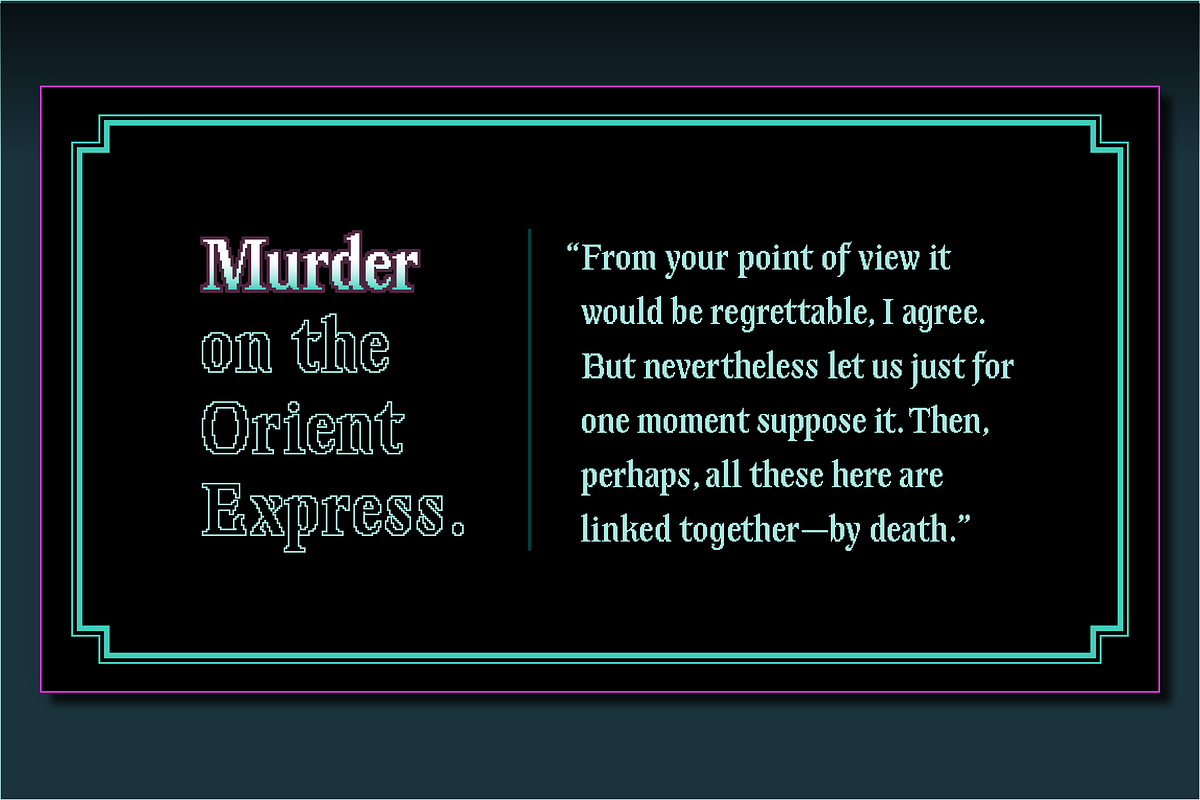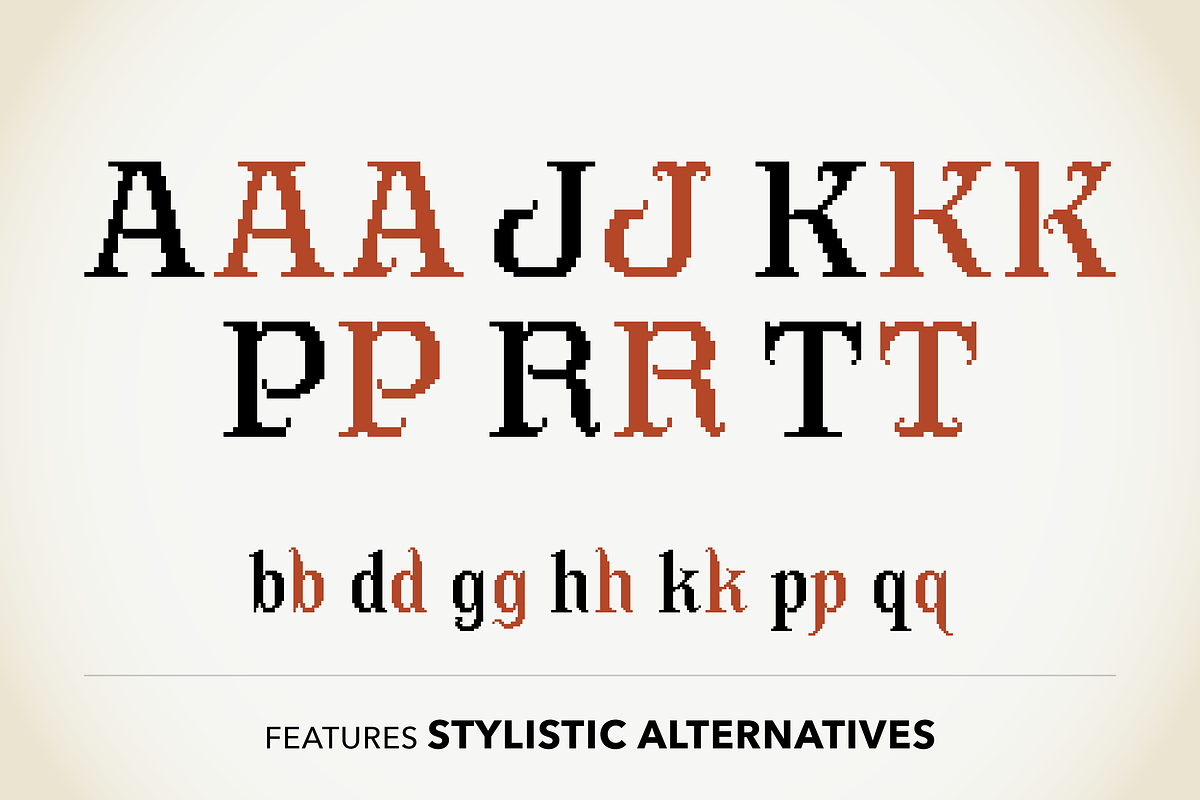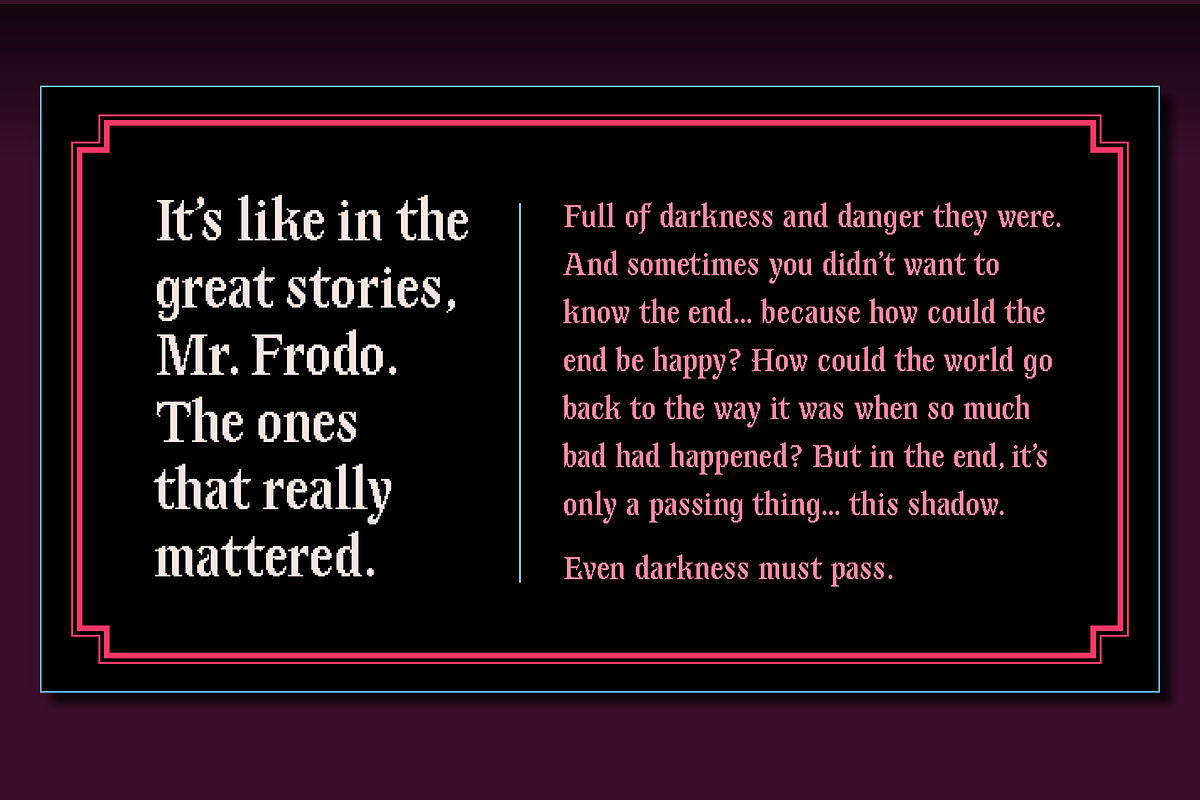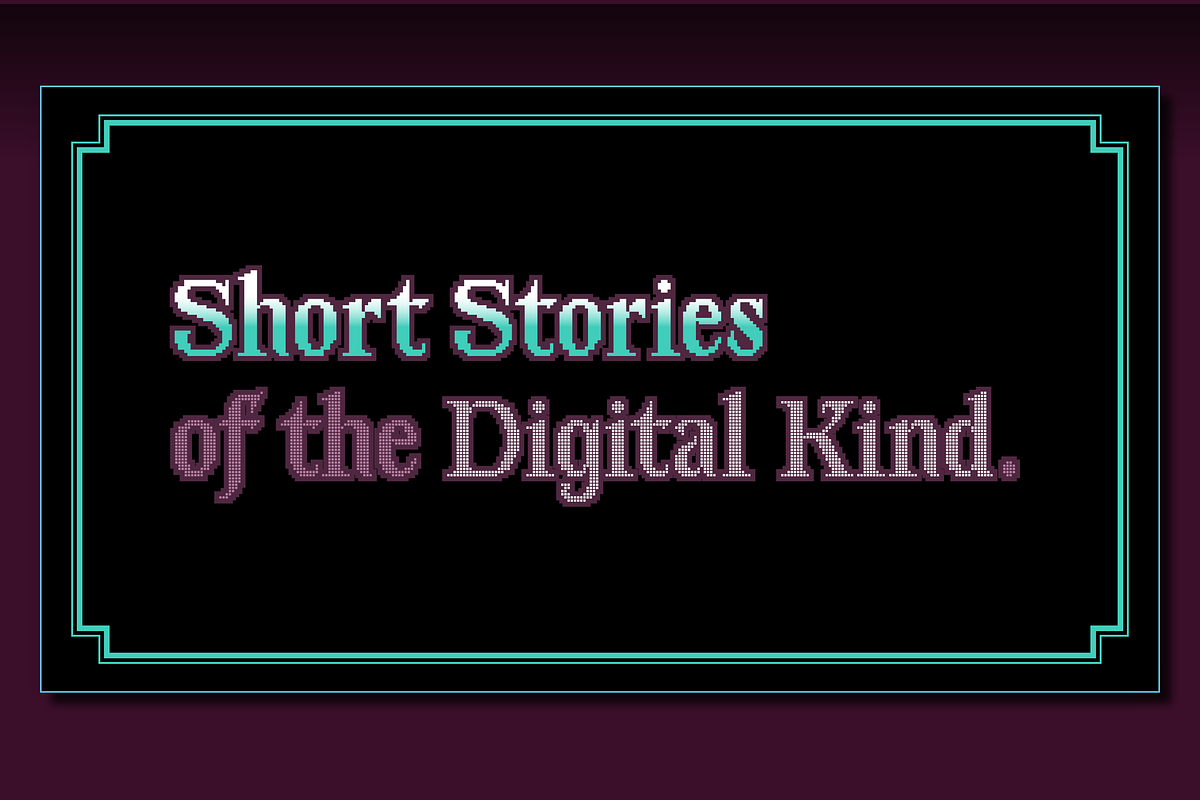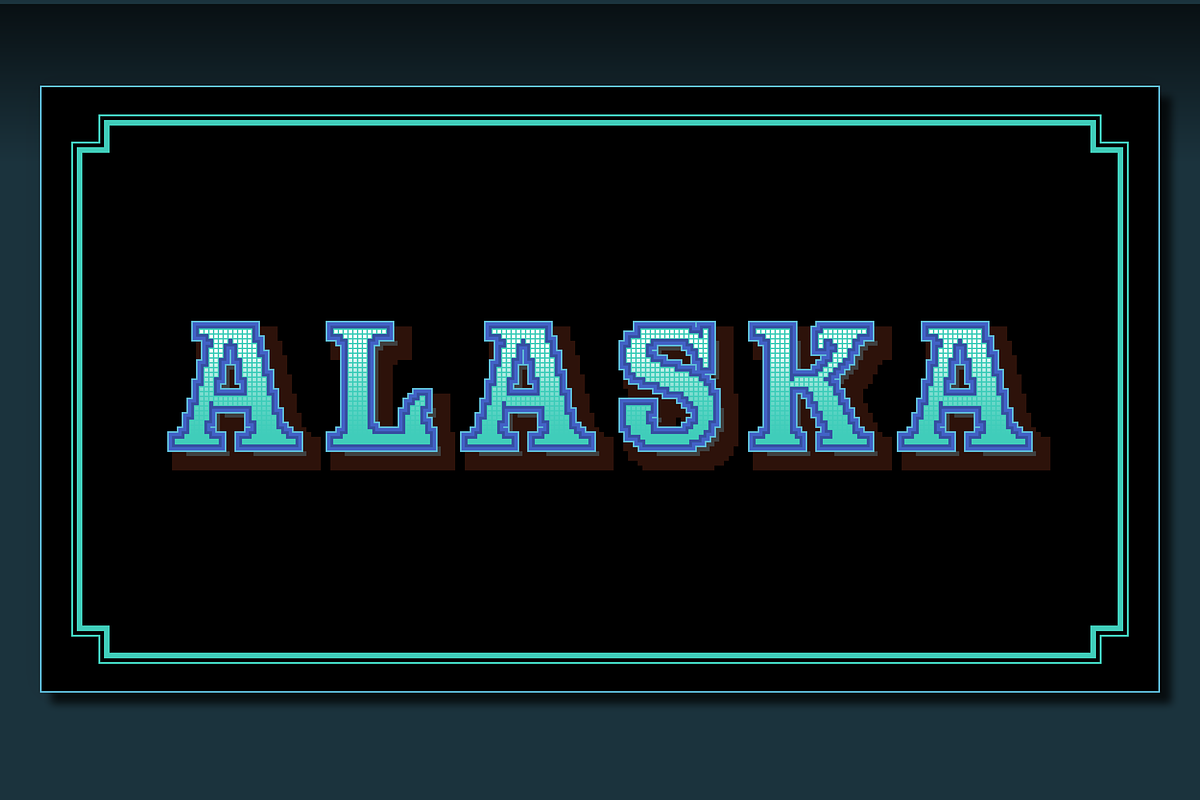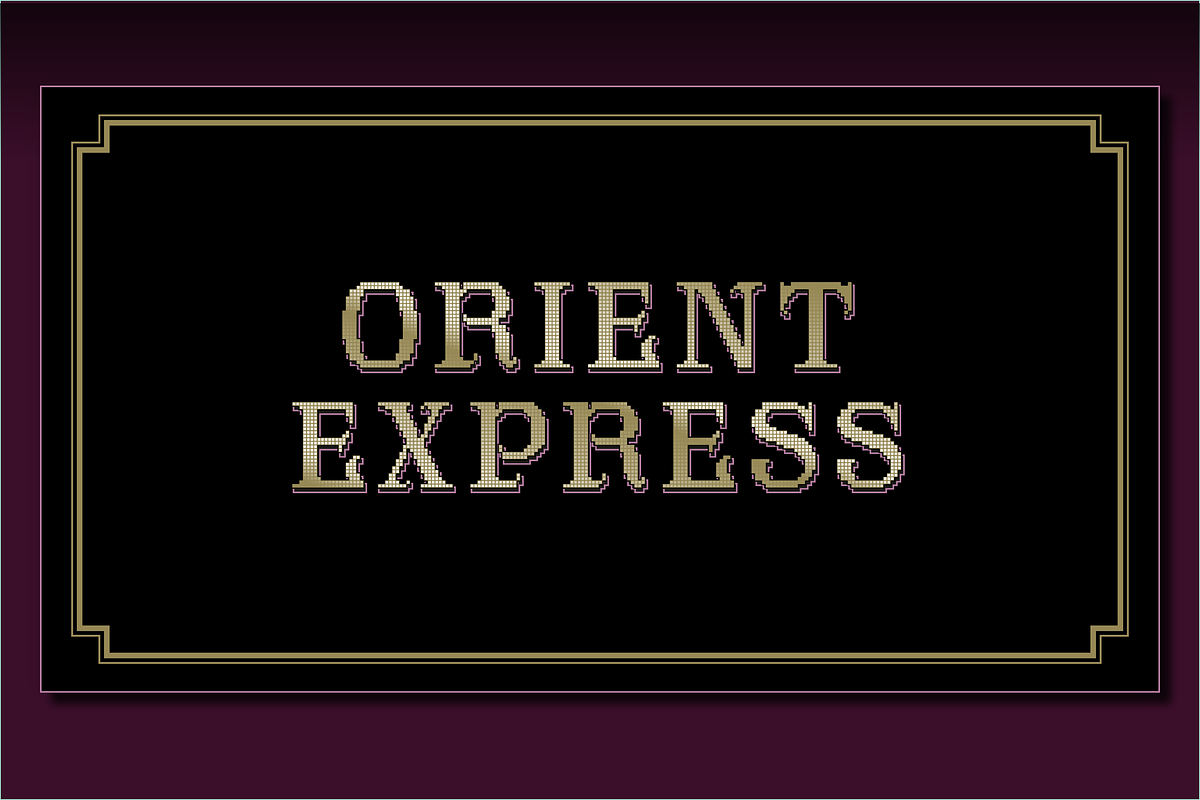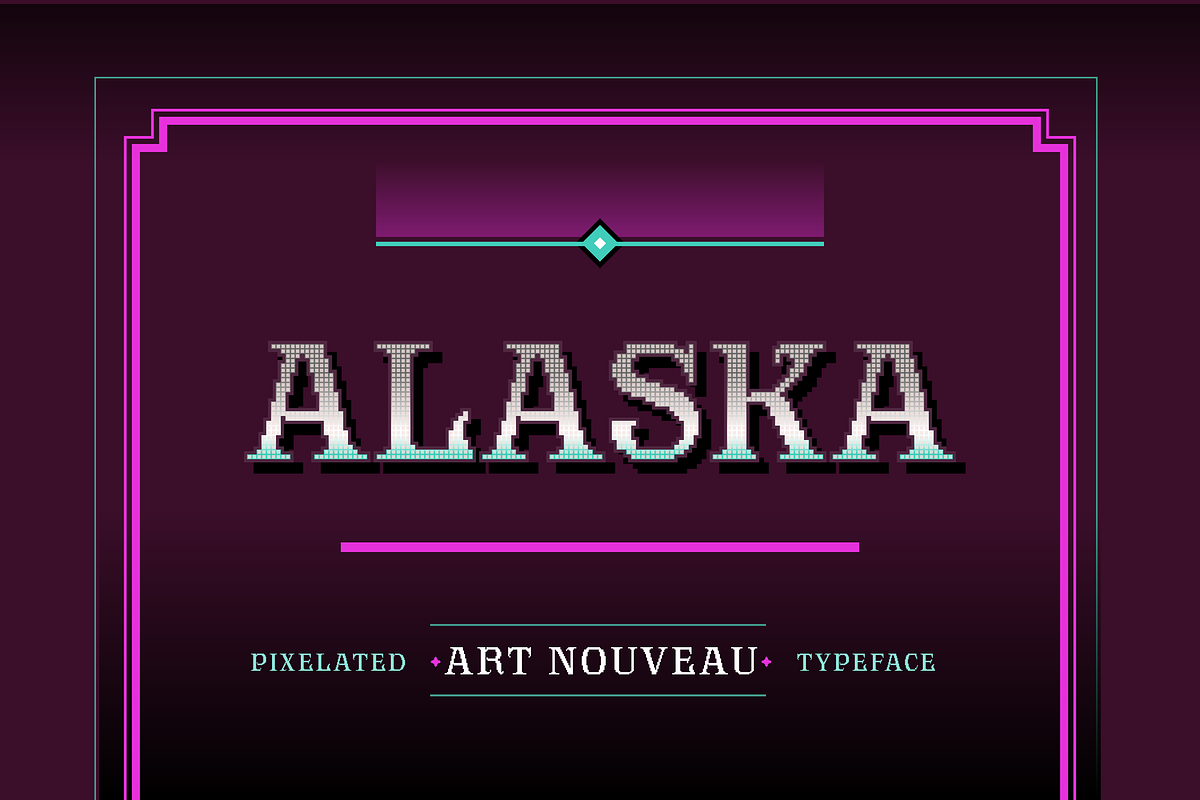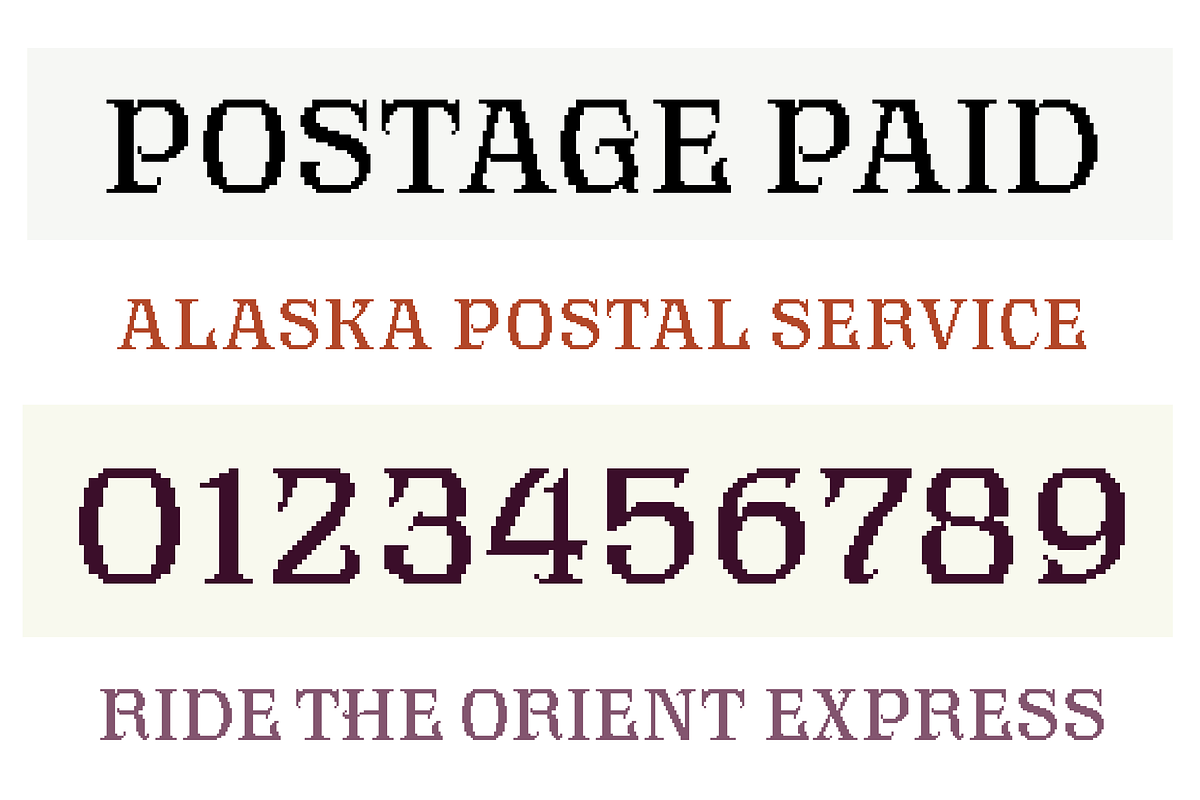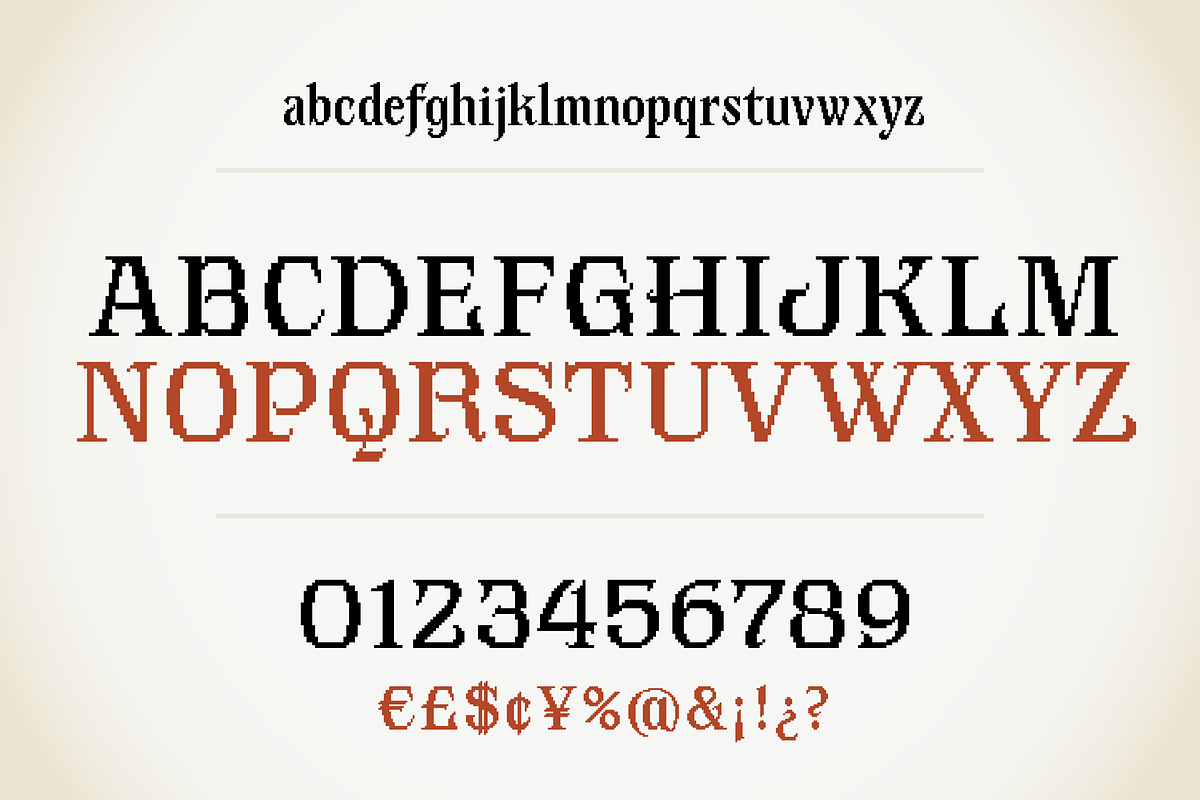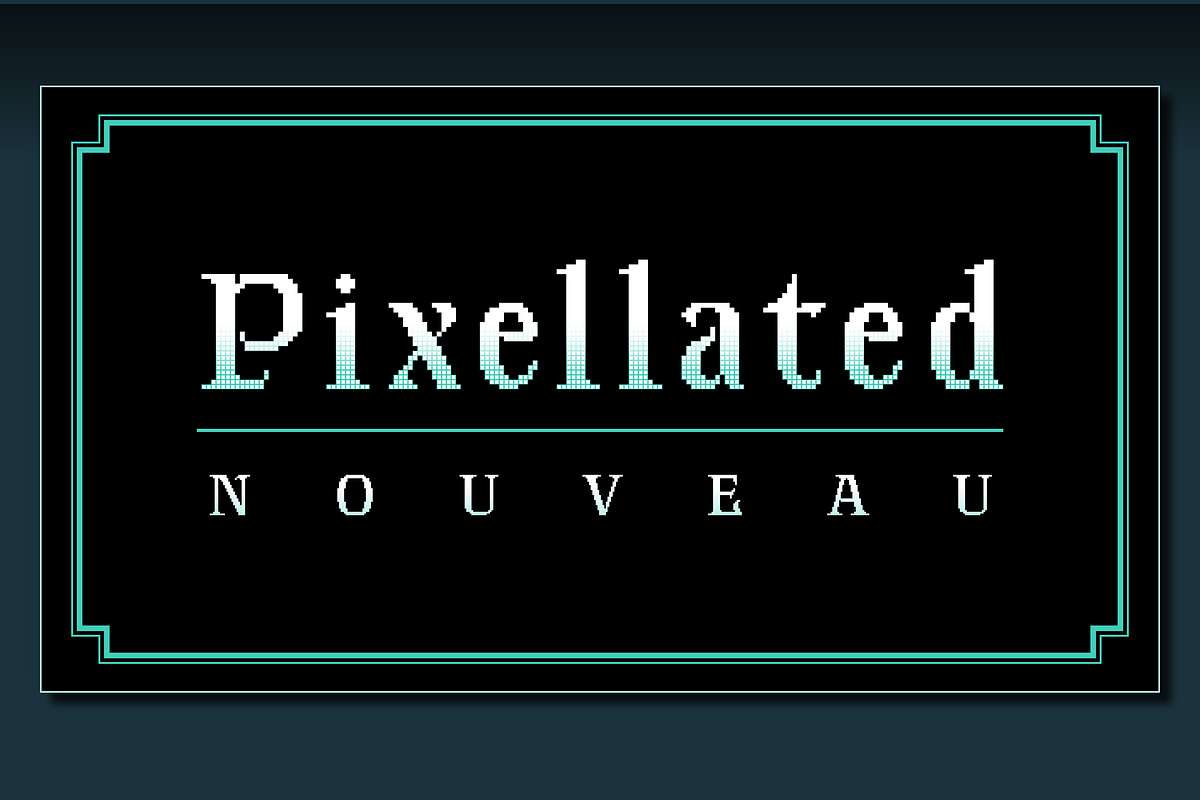
Alaska - Art Nouveau pixel art
SB Alaska is an art nouveau pixel font designed as a typeface for vintage style or fantasy themed games. It has good latin language support and features ligatures and alternative characters for some letters.